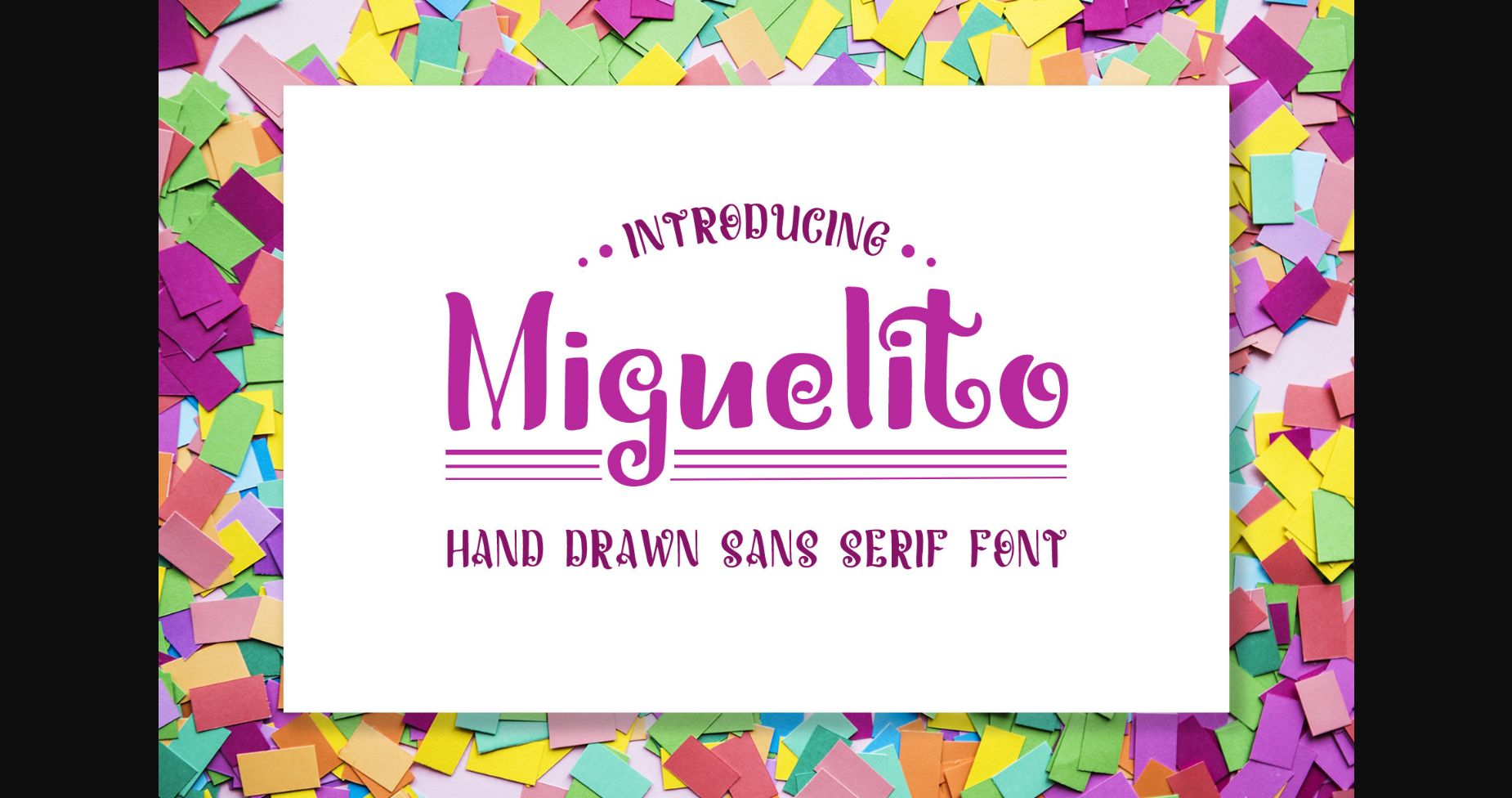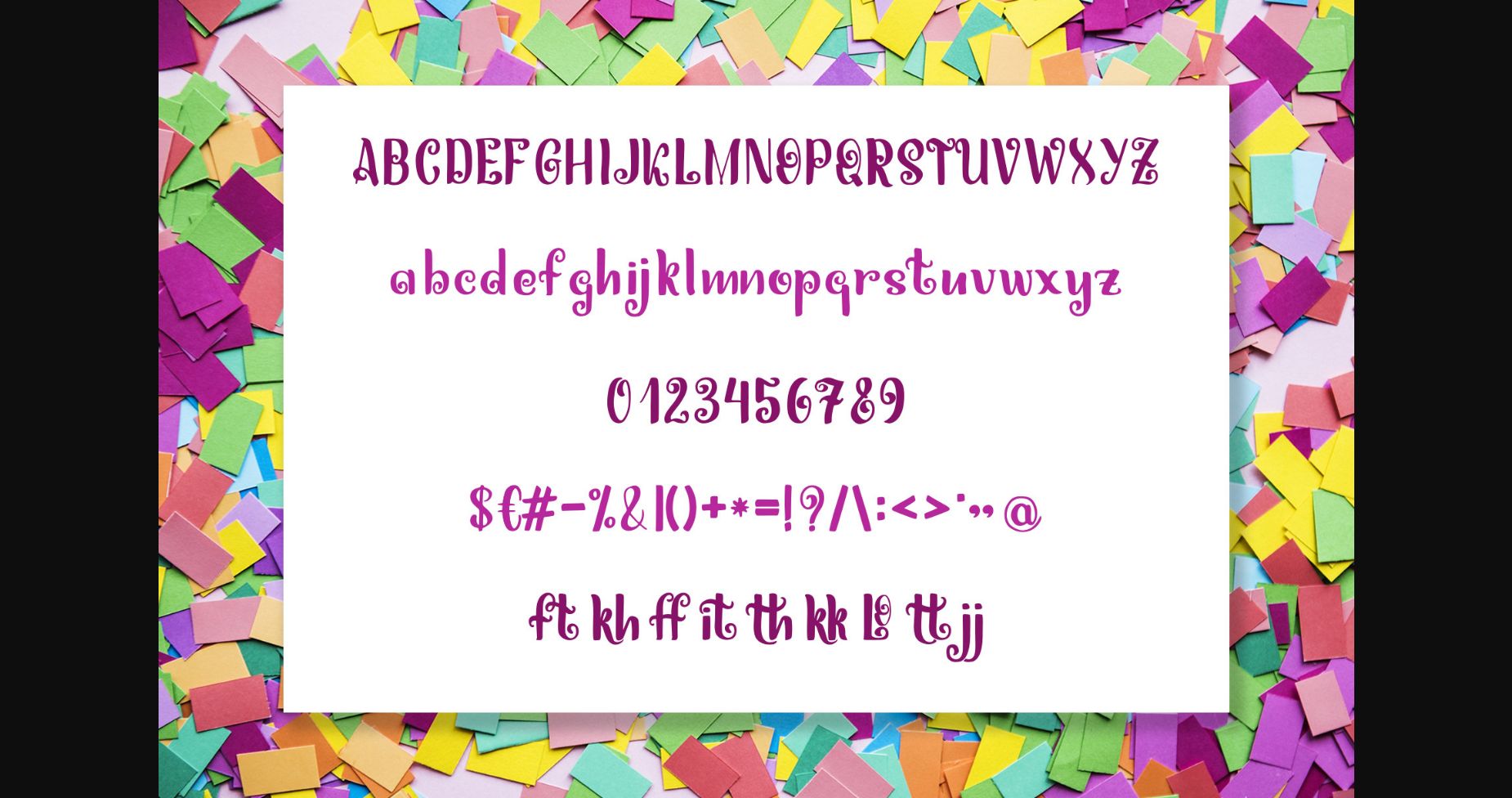
About Miguelito Font
Miguelito is a hand-drawn, sans serif font that features glyphs that have playful and swirly flourishes. It is the perfect font for prints, kids’ posters, logotype, lettering compositions, and even packaging designs.